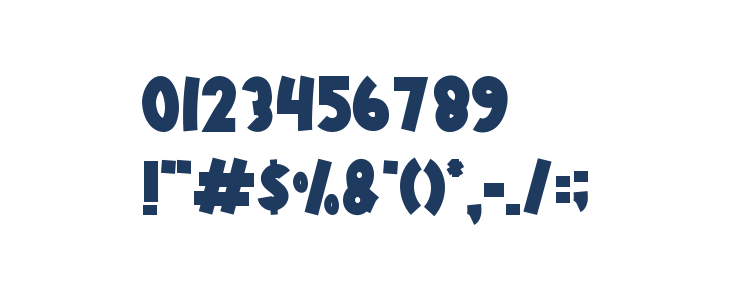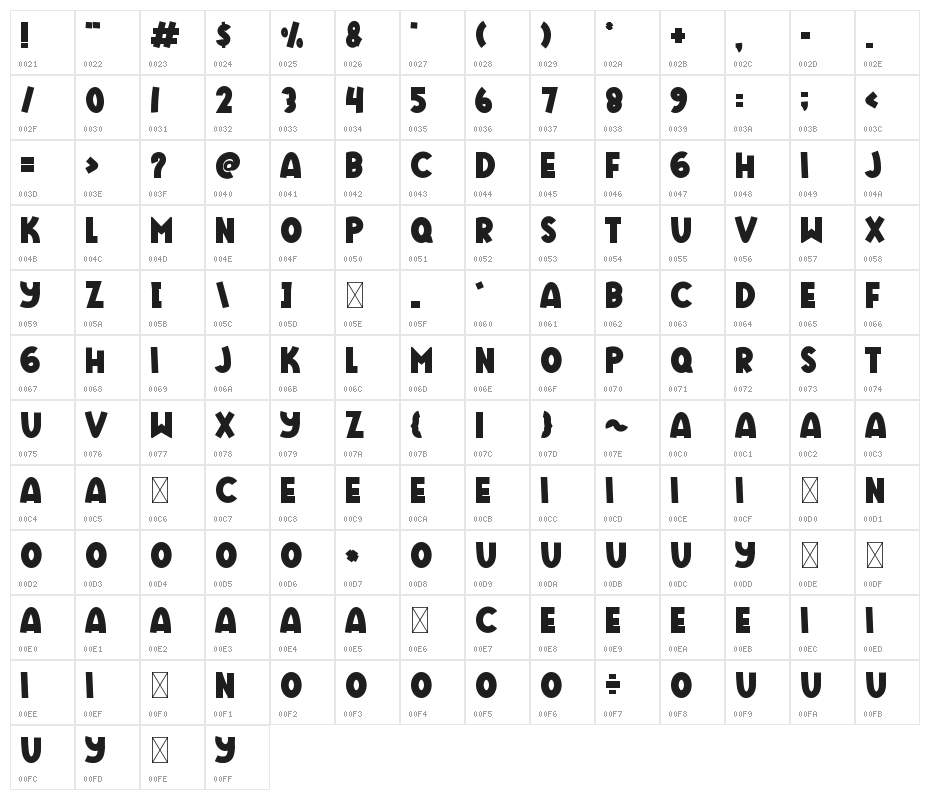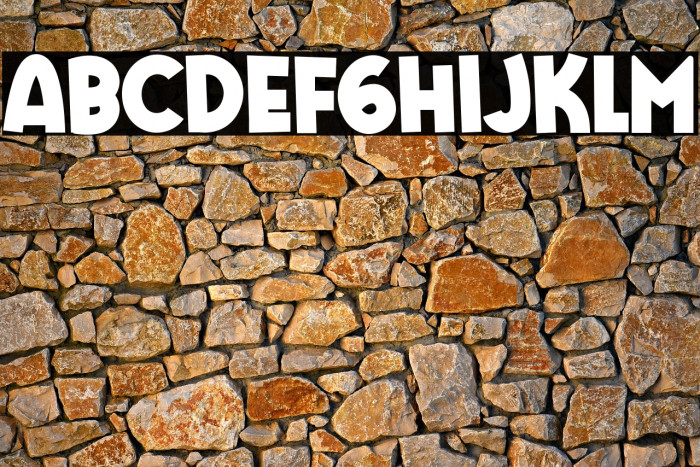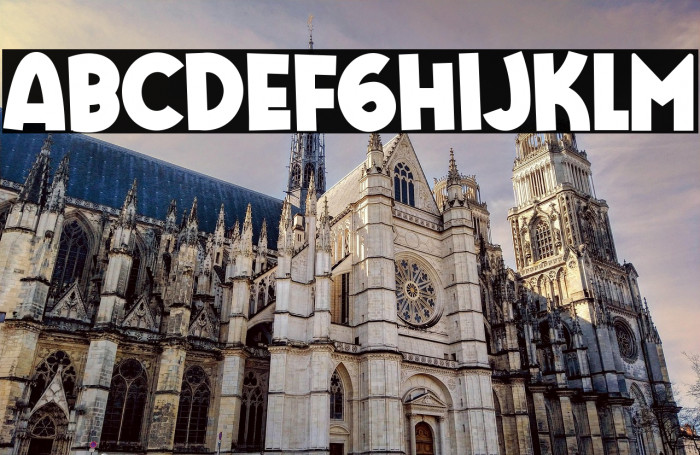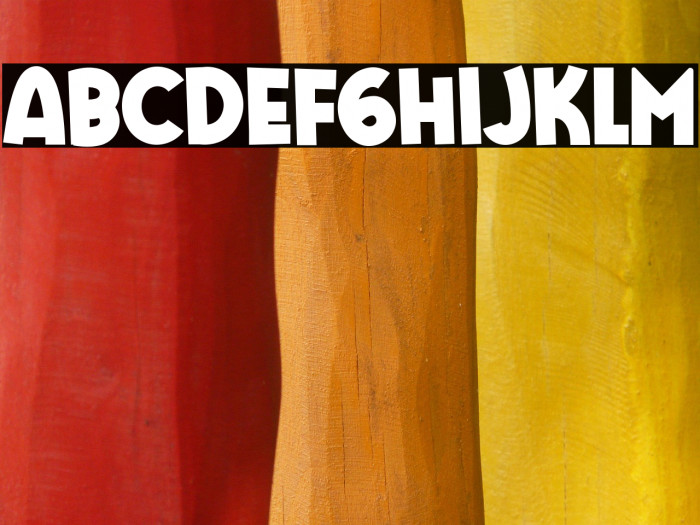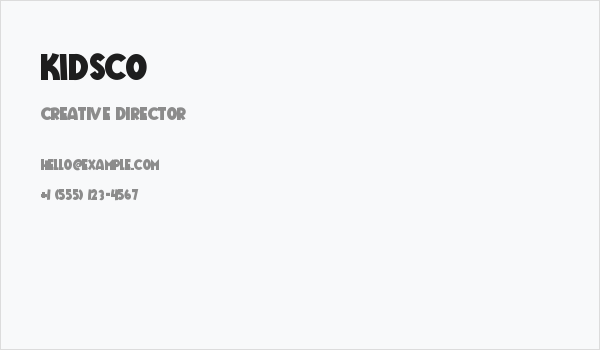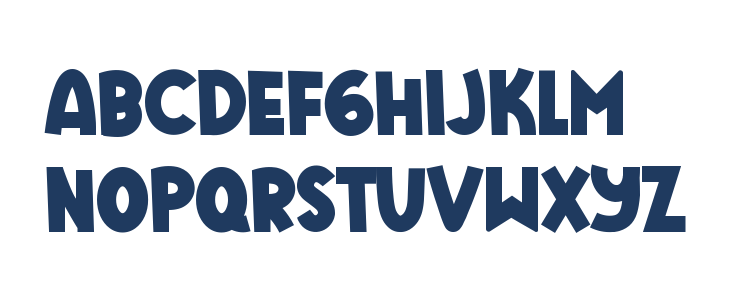
Kidsco Font
Kidsco Description
This playful and bold font features a whimsical style with exaggerated curves and rounded edges, making it ideal for capturing attention in a fun and engaging way. The uppercase and lowercase letters are designed with a consistent thickness, providing a uniform appearance across the alphabet. The numbers and special characters maintain the same playful aesthetic, ensuring a cohesive look throughout. This font's unique character shapes and bold presence make it suitable for projects that require a lively and energetic feel.
| Overall Style | Playful |
| Proposed Projects | Ideal for children's books, toy packaging, playful branding, and educational materials. |